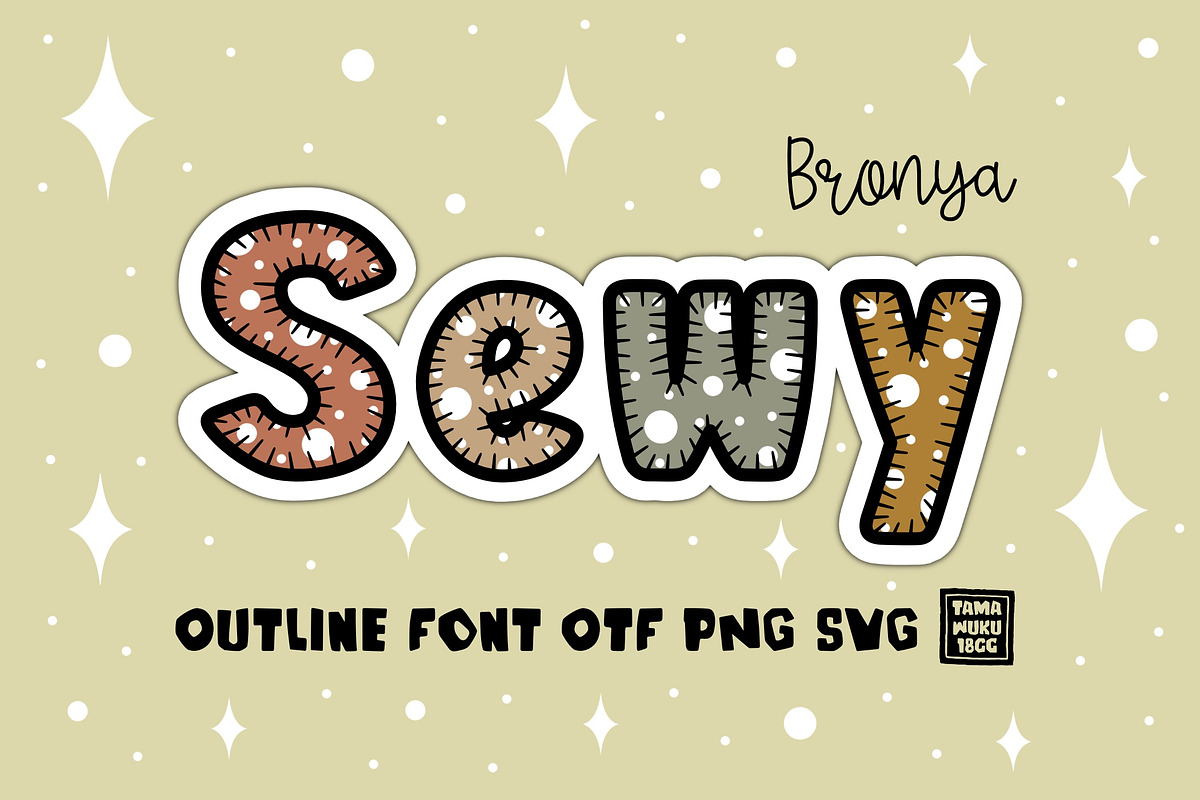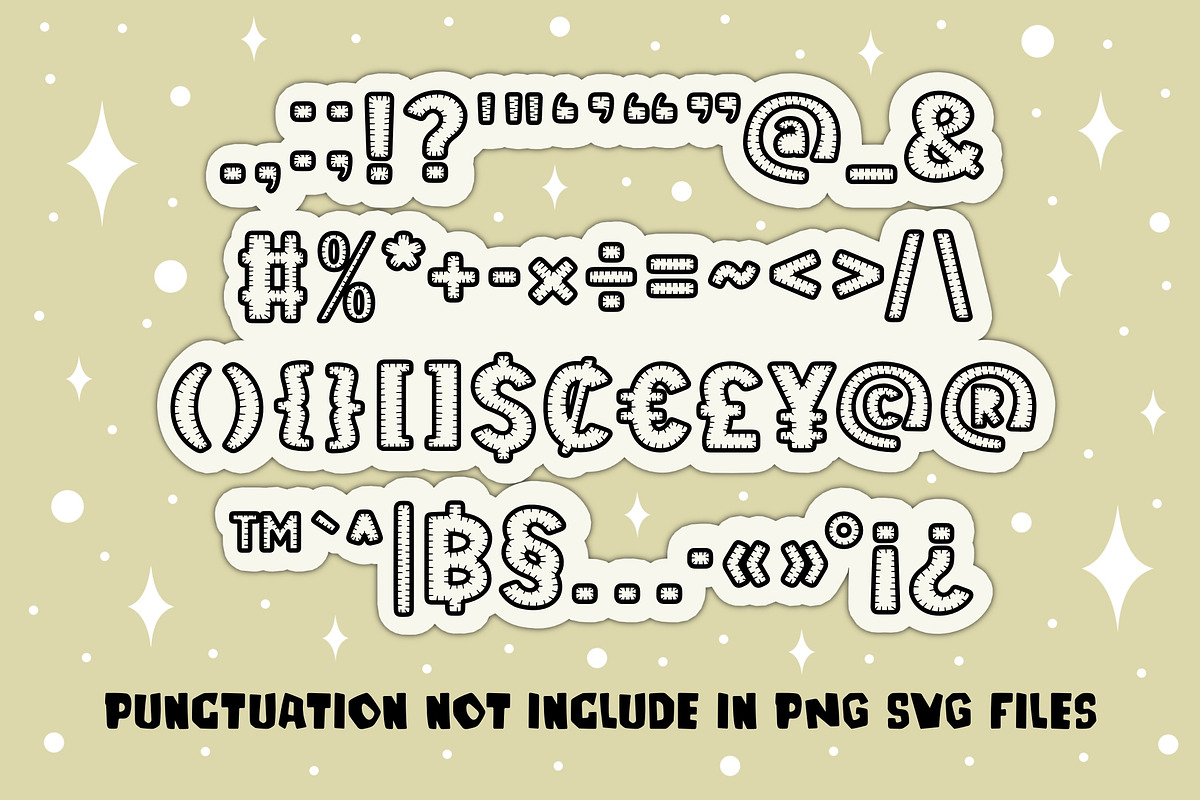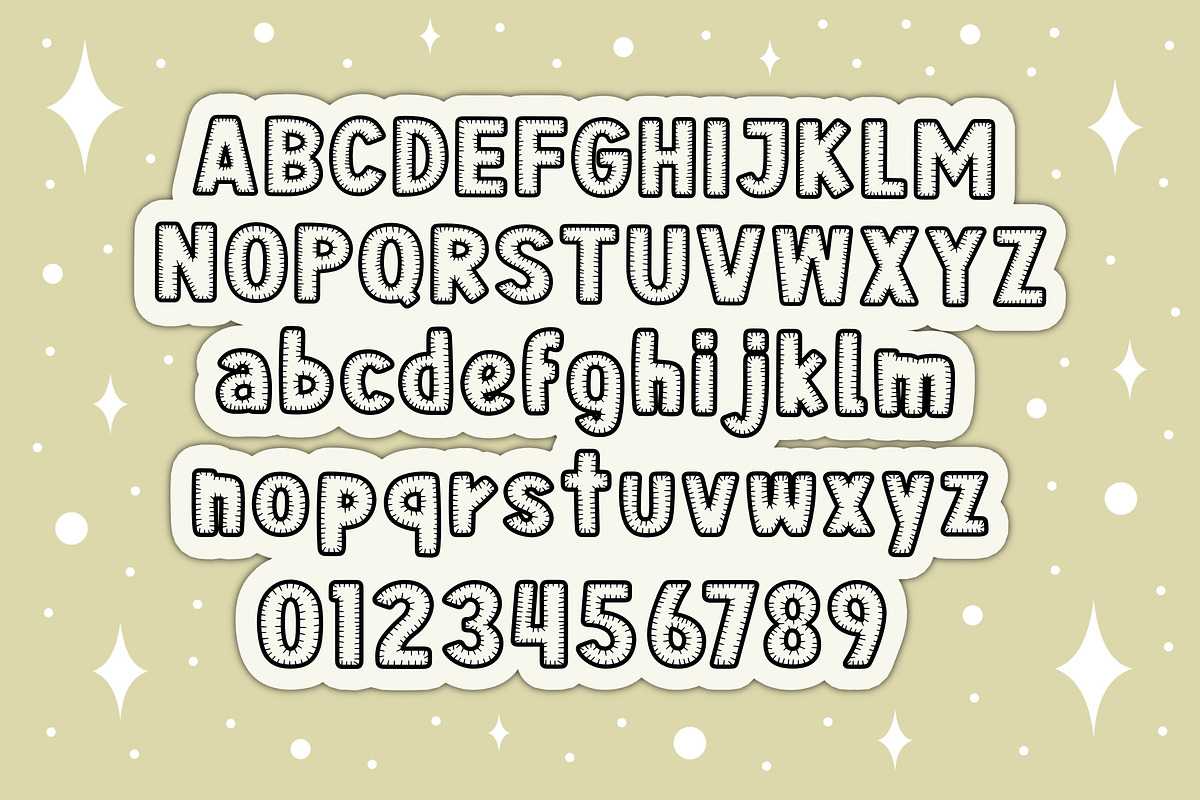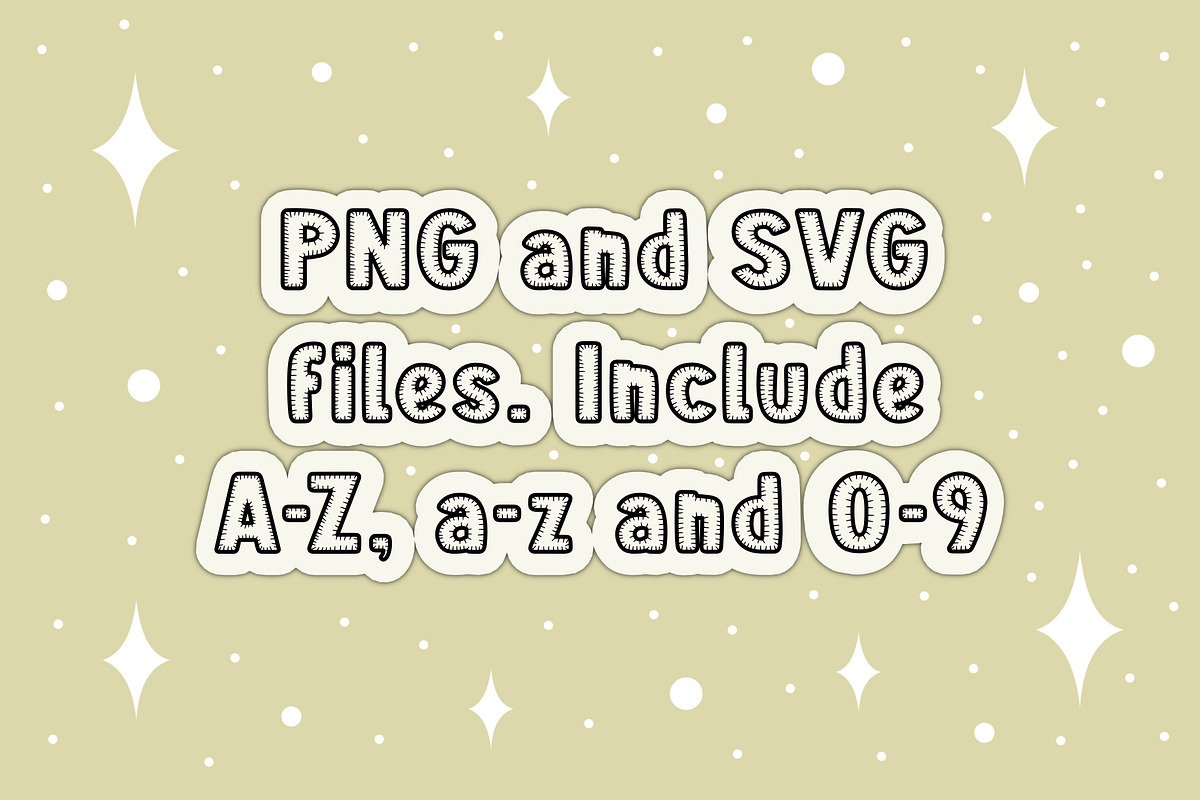
Bronya Sewy OTF PNG SVG
Bronya Sewy is a Outline Display Font. This font is perfect for a design that requires a fun accent. Is suitable for book covers, coloring, posters, packaging, merchandise, logotype, and much more.